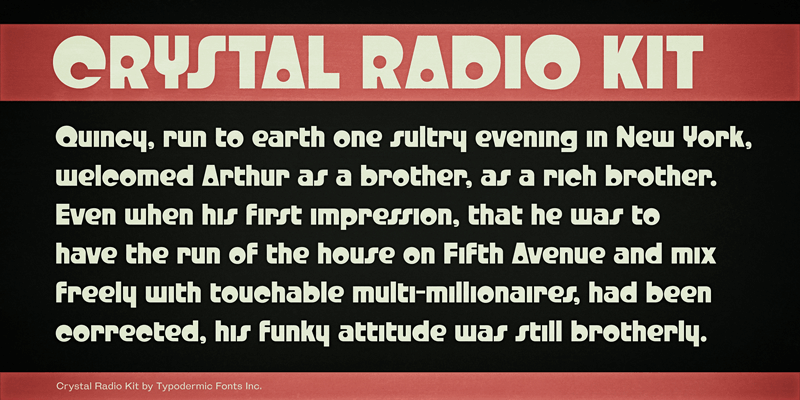
Crystal Radio Kit is a tribute to the typeface famously used for the old Radio Shack logo. Crystal Radio Kit has been updated from the 1998 version with improved vertical metrics for cross-browser web performance. More languages are supported and accents have been redesigned. Spacing and kerning has been improved. More punctuation and math symbols have been added, as well as fractions and numeric ordinals. This font includes a license that allows free commercial use: sometimes referred to as a desktop license. This allows you to install the font on a computer and use it to create posters, web graphics, game graphics, t-shirts, videos, signs, logos and more. Read the license agreement for details. If you'd like to embed this font in an app, ebook, on the web or anything that's not covered by the desktop license agreement, visit the link below. You'll find distributors who offer different types of licenses or you can contact me for help. http://typodermicfonts.com/crystal-radio-kit/ |